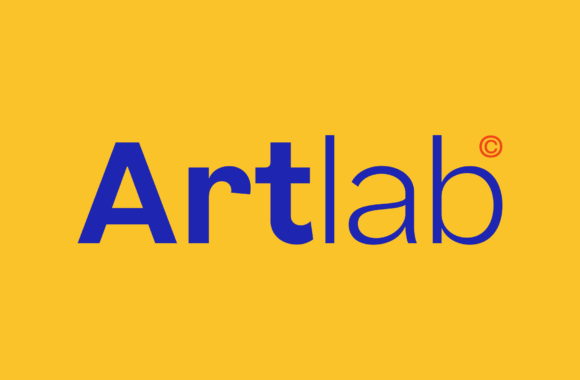
Introducing Artlab Font: A Modern Variable Sans-Serif Typeface
In the world of typography, a new font has emerged that is taking the design community by storm. Meet Artlab, a modern variable sans-serif typeface that is making waves with its clean and visually appealing design. With a versatile range of 18 styles, Artlab is suitable for a variety of design applications, from branding and editorial design to digital interfaces.
Key Features of Artlab Font
- Modern Variable Sans-Serif Typeface: Artlab is designed with a modern aesthetic in mind, offering a fresh take on the traditional sans-serif font.
- 18 Styles: With a range of 18 styles, Artlab offers a high degree of versatility, making it suitable for a wide range of design applications.
- Clean and Visually Appealing Design: Artlab’s design is characterized by its clean structure and visually appealing aesthetic, making it perfect for designs that require a professional look and feel.
- Highly Readable: Artlab’s clean structure and simple design ensure that it remains highly readable, even at small font sizes.
Design Applications for Artlab Font
Artlab’s versatility makes it an excellent choice for a wide range of design applications. Here are a few examples:
- Branding: Artlab’s clean and modern design makes it an excellent choice for branding projects, from logos to business cards.
- Editorial Design: Artlab’s readability and versatility make it perfect for editorial design, including magazines, newspapers, and books.
- Digital Interfaces: Artlab’s clean design and simple aesthetic make it an excellent choice for digital interfaces, including websites, apps, and software.
The Benefits of Using Artlab Font
So why choose Artlab font for your design projects? Here are a few benefits:
- Flexibility: With 18 styles to choose from, Artlab offers a high degree of flexibility, making it suitable for a wide range of design applications.
- Readability: Artlab’s clean structure and simple design ensure that it remains highly readable, even at small font sizes.
- Professional Look and Feel: Artlab’s modern design and clean aesthetic ensure that it looks professional and sleek, making it perfect for designs that require a high-end look and feel.
Inspiration for Using Artlab Font
Need inspiration for using Artlab font in your design projects? Here are a few ideas:
- Minimalist Designs: Use Artlab font to create clean and minimalist designs that are perfect for modern brands.
- Bold and Bright Designs: Experiment with bold and bright colors to create eye-catching designs that grab attention.
- Editorial Spreads: Use Artlab font to create beautiful editorial spreads that showcase your content in a clean and elegant way.
- Font Family: Artlab
- Font Style: Variable Sans-Serif
- Number of Styles: 18
In conclusion, Artlab font is a modern variable sans-serif typeface that is perfect for designers looking for a clean and visually appealing font. With its versatile range of 18 styles, Artlab is suitable for a wide range of design applications, from branding and editorial design to digital interfaces. Its clean structure and readability ensure that it remains professional and easy to read, making it an excellent choice for designers of all skill levels.